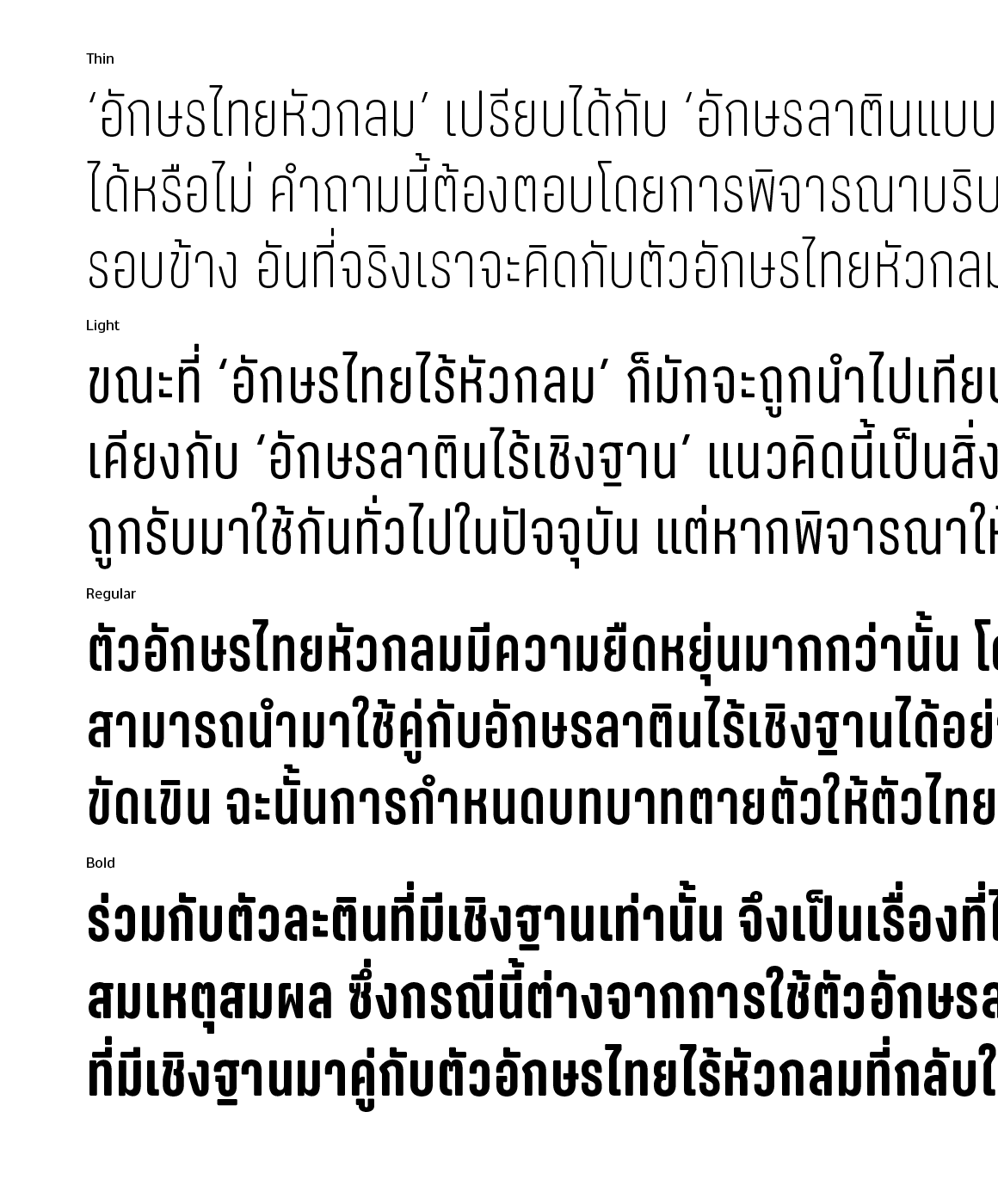
Anugrom Rounded
Anagram Rounded™ (อนุกรม ราวน์ด) is a trispace Sans Serif family with the closed forms — a rounded version in 4 weights. This typeface is ideally suited for publication, corporate identity, branding, wayfinding as well as web and screen design.
Name : Anugrom Rounded
Weight : Thin, Light, Regular and Bold
Language : Latin 1 / Thai
Release Date : 2018
Designer :Thanarat Vachiruckul, Parin Rungpattarathakun
Technician : Thanarat Vachiruckul, Suppakit Chalermlarp